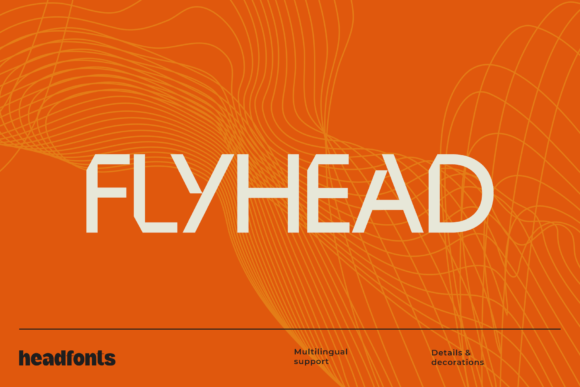
Behold, Flyhead, the font of the future. Prepare to be mesmerized by its sleek geometry and surgical precision, effortlessly combining aesthetics with readability. This meticulously crafted sans serif typeface is designed to bring clarity to your messages, allowing them to leap off the screen and into the hearts of your audience.
Flyhead's clean lines and precise cuts evoke a sense of innovation and progress, making it the perfect choice for industries on the cutting edge. Tech companies, agricultural pioneers, energy innovators, and medical visionaries will find their perfect match in Flyhead. It's the font that speaks of progress, discovery, and boundless potential.
With Flyhead as your ally, you can craft stunning websites that capture the essence of modern technology, marketing materials that exude the vitality of sustainable agriculture, brochures that ignite the passion for renewable energy, and medical journals that radiate the brilliance of scientific discovery. Its versatile nature effortlessly adapts to headlines, titles, and body text, ensuring your message remains crystal clear and impactful throughout your design.
Step into the future with Flyhead. Embrace the power of innovation and watch your designs soar to new heights. This font is not just a collection of letters; it's a gateway to a world of limitless creativity and captivating communication.